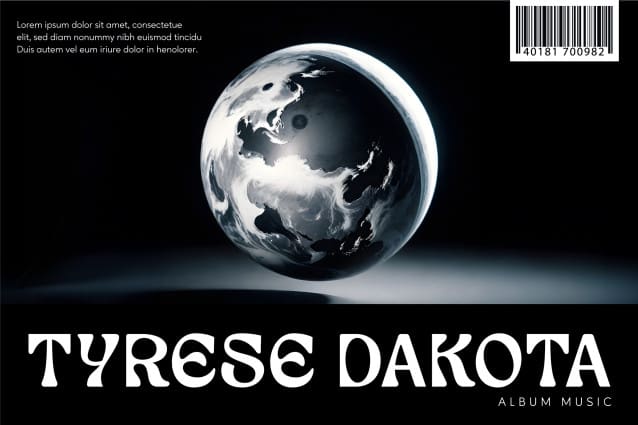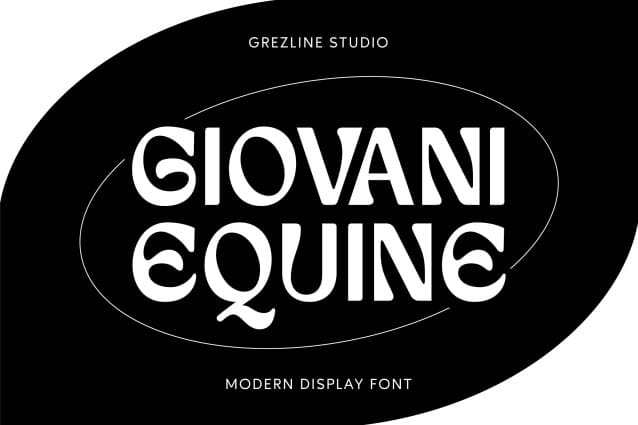
Giovani Equine Font
Giovani Equine Font, this font is perfect for stickers, retro projects, craft projects, shirts, svg designs, procreate designs, branding, blogs, logos, invitations and more!